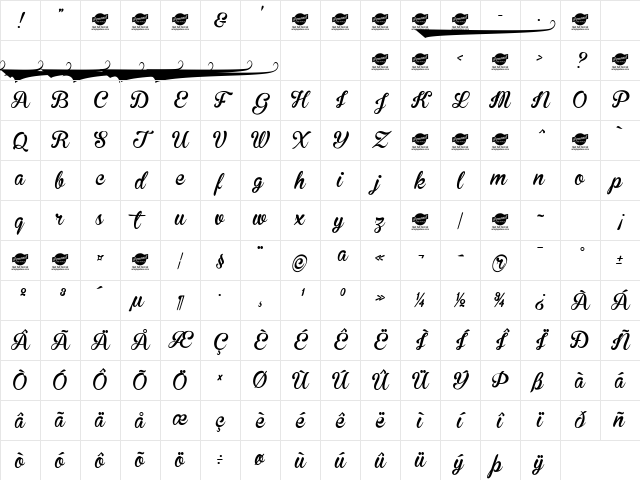
Brannboll Ny Personal Use Only Regular
Foundry: M￿ Greb￿
Designer: M￿ Greb￿
Design Context for Brannboll Ny Personal Use Only
Brannboll Ny Personal Use Only is a composed and adaptable typeface that performs quietly and consistently across a wide range of design contexts.